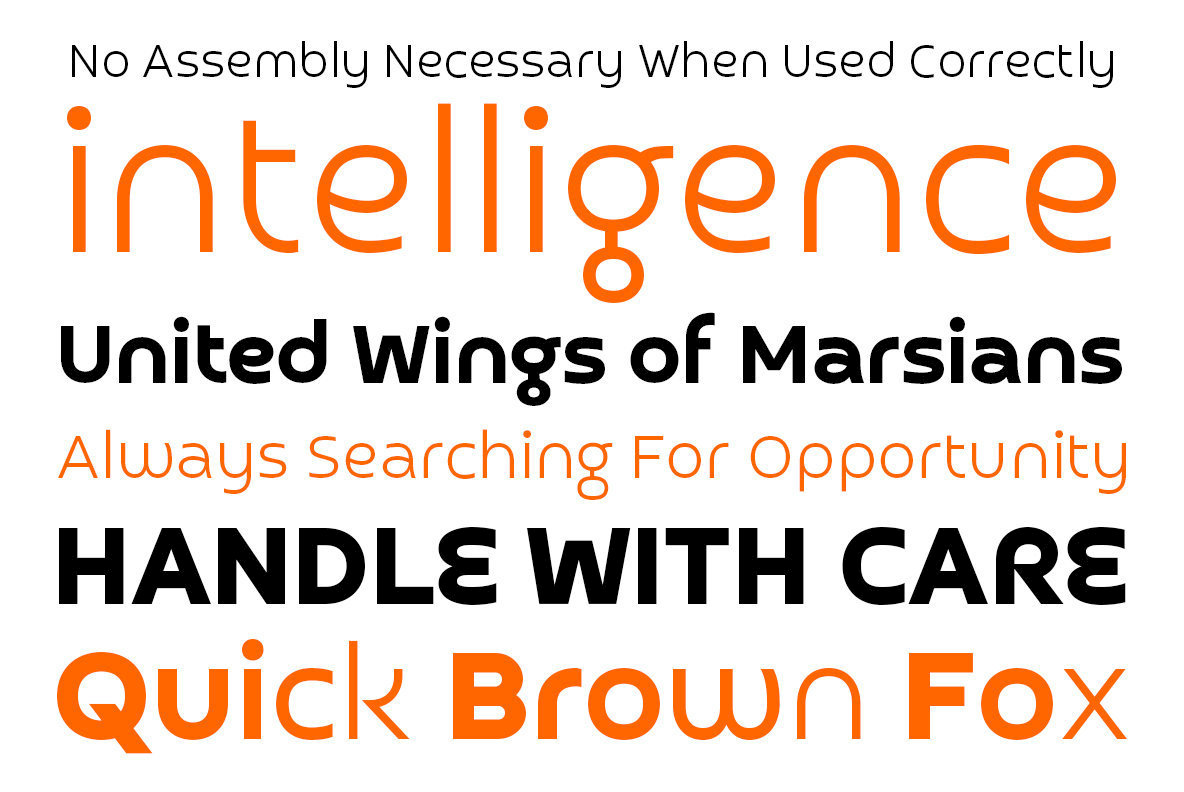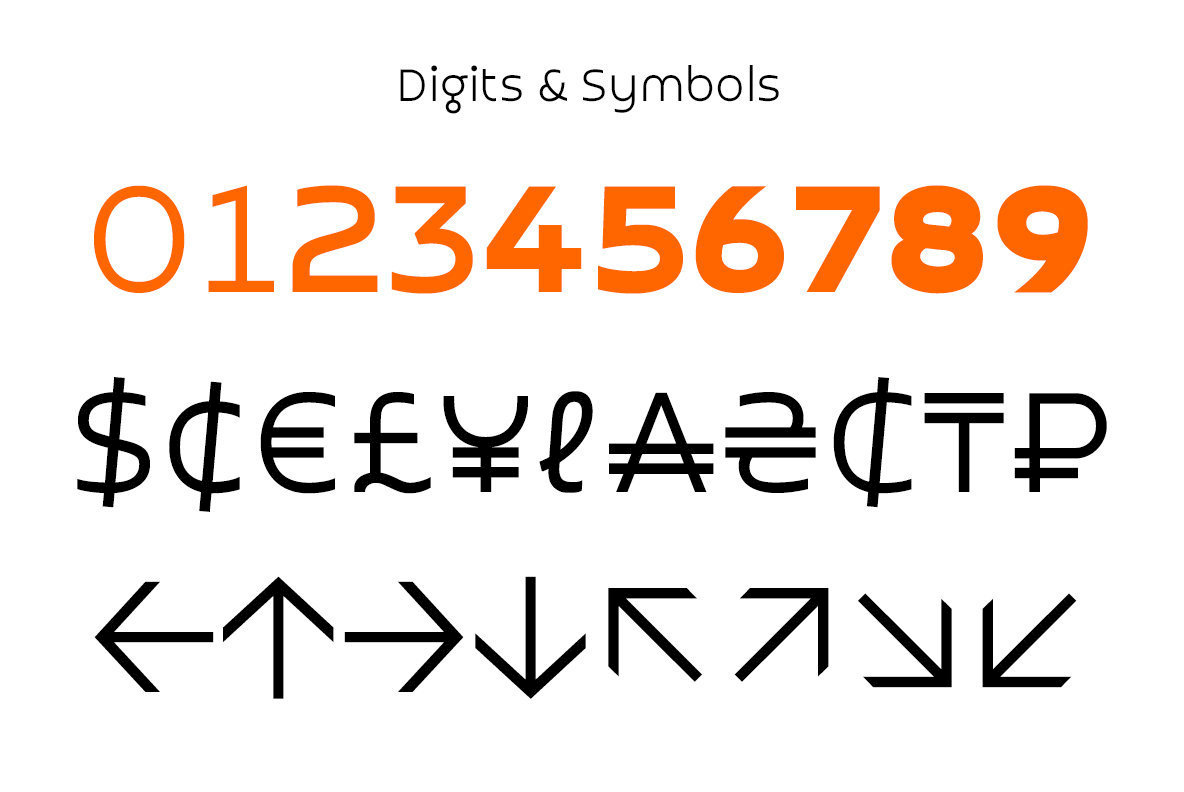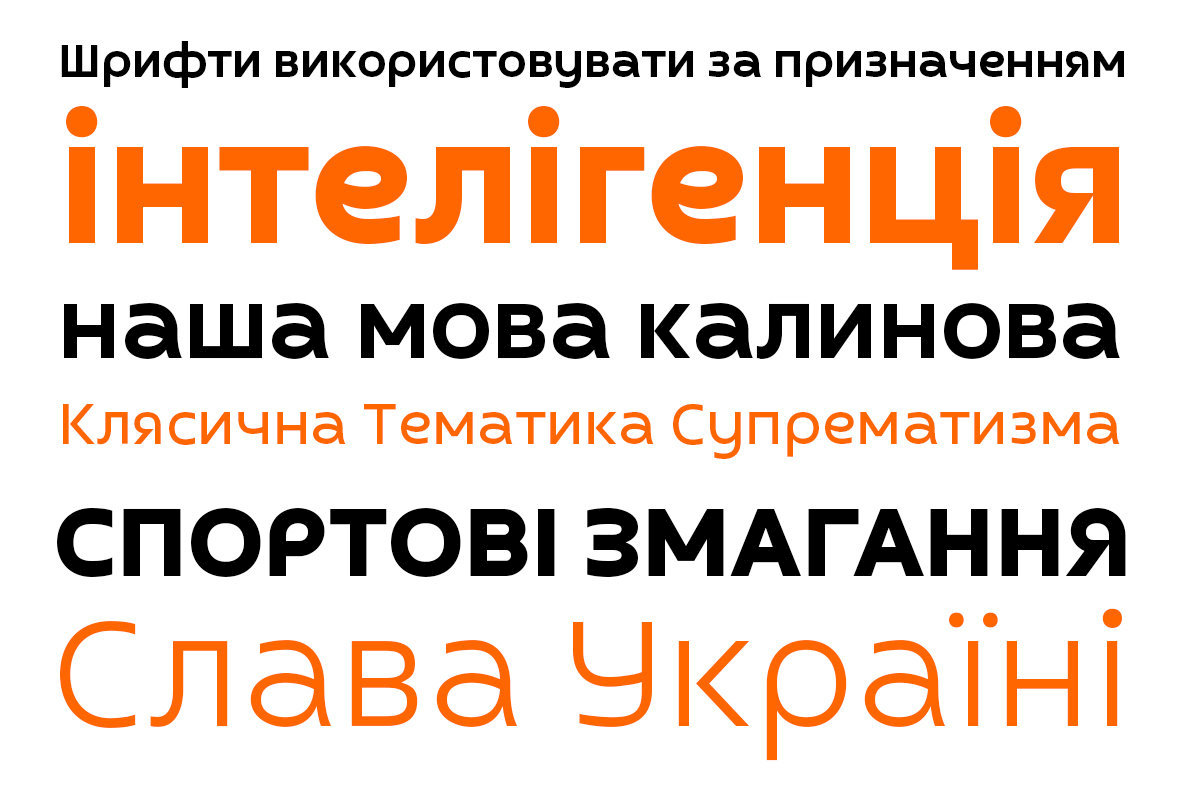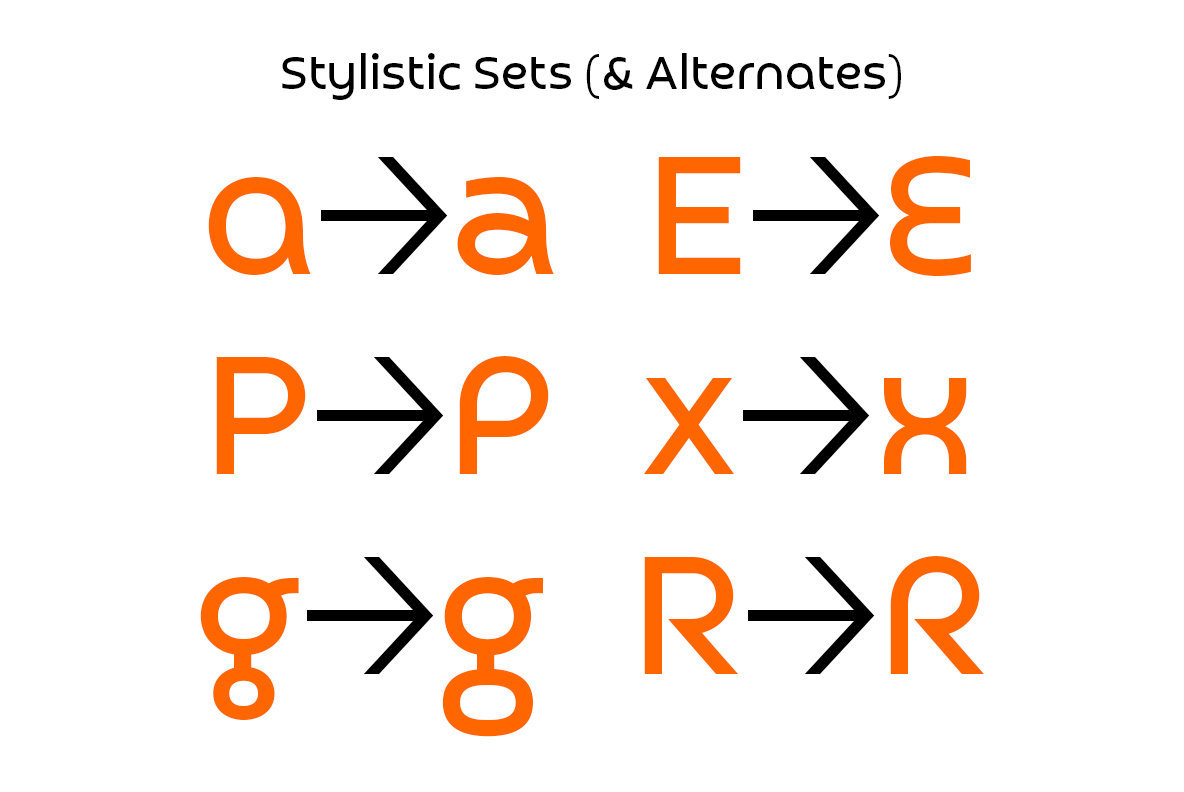
Croogla 4F Font
Croogla 4F embodies a symphony of geometric innovation and meticulous design. Created to complement modern aesthetics, this typeface stands out with its clean lines and balanced forms, perfect for diverse design applications. Its distinct characteristics make it a suitable choice for both digital projects and print materials.Croogla 4F: Geometric Precision in Typography